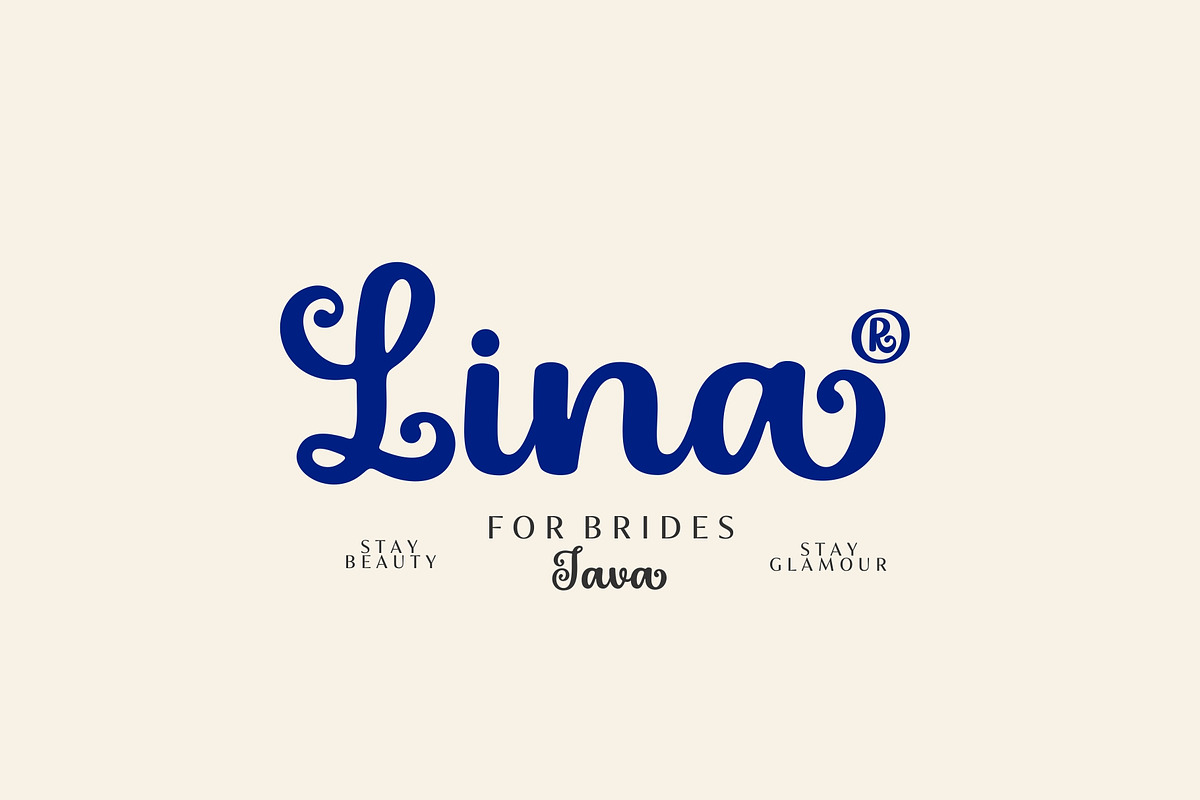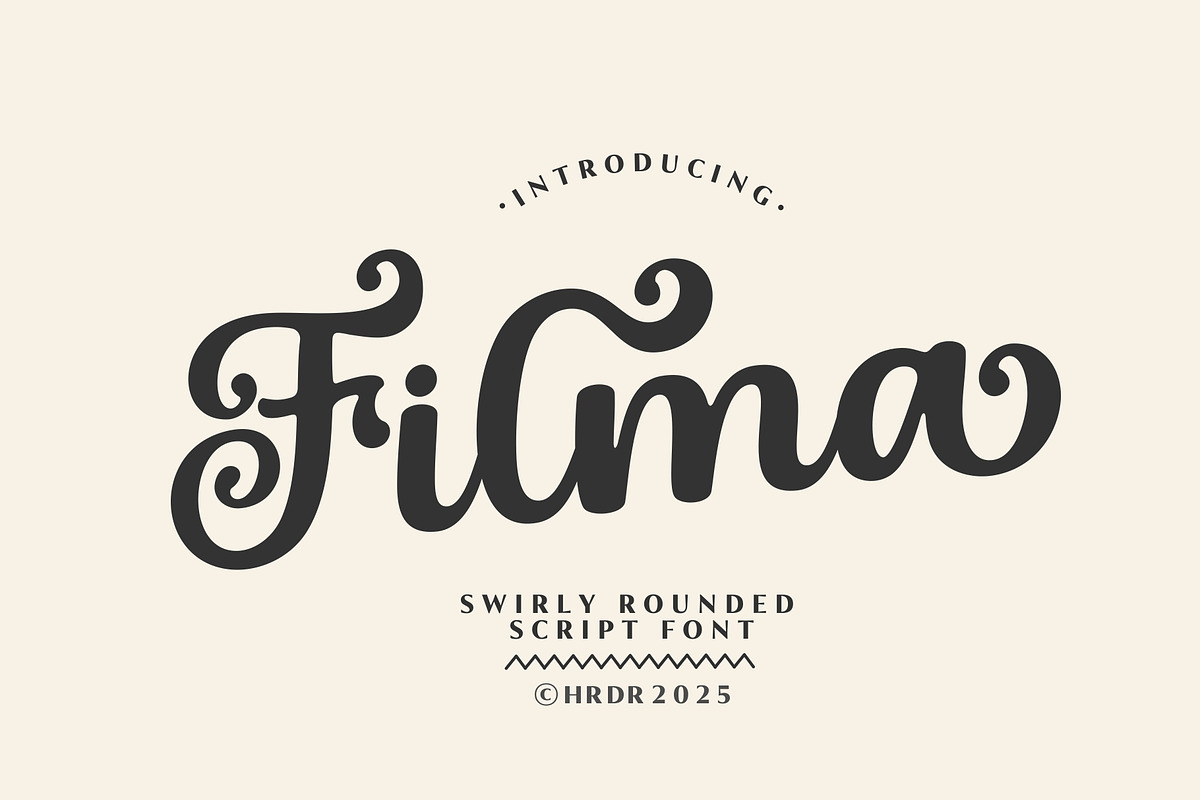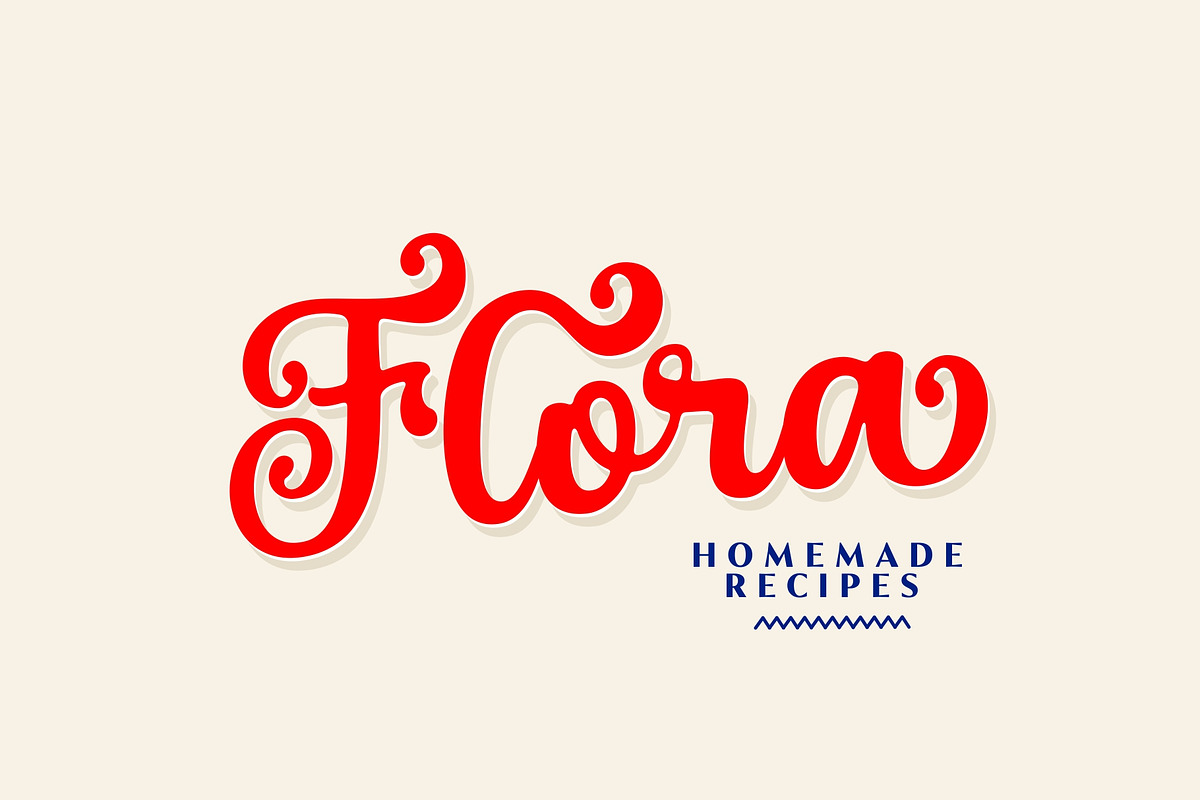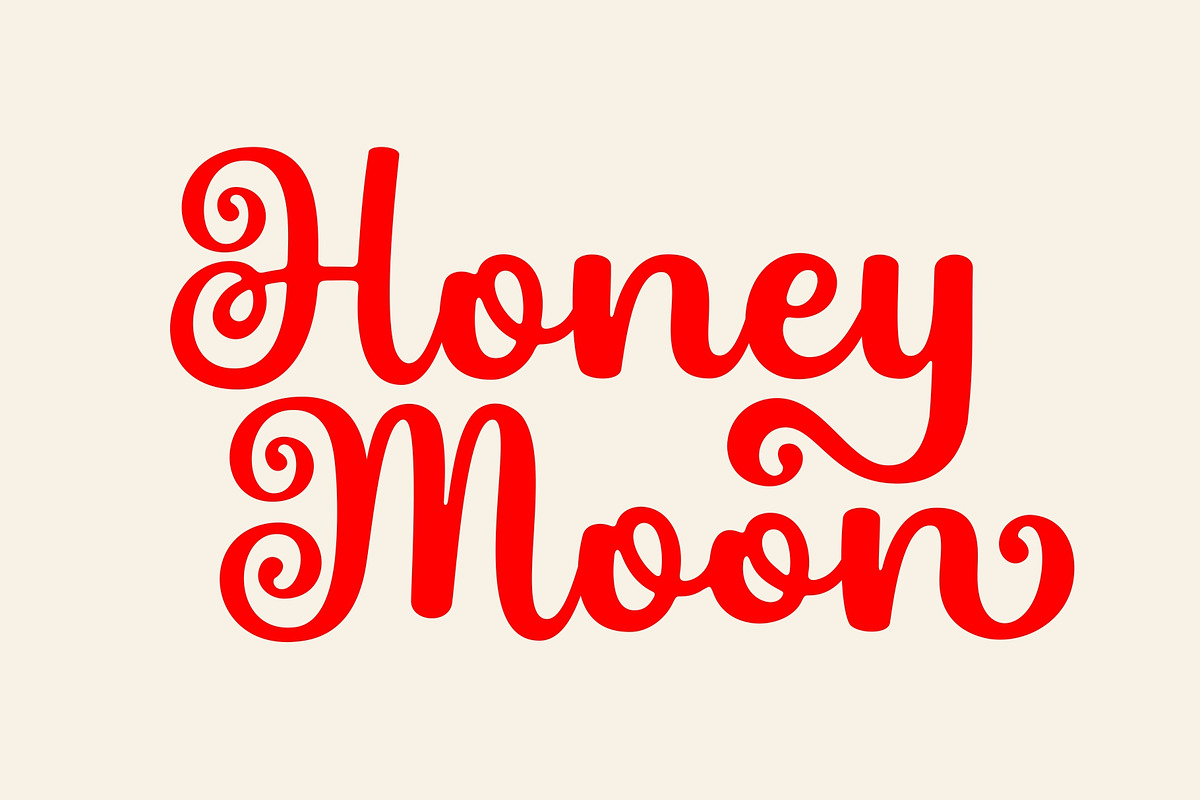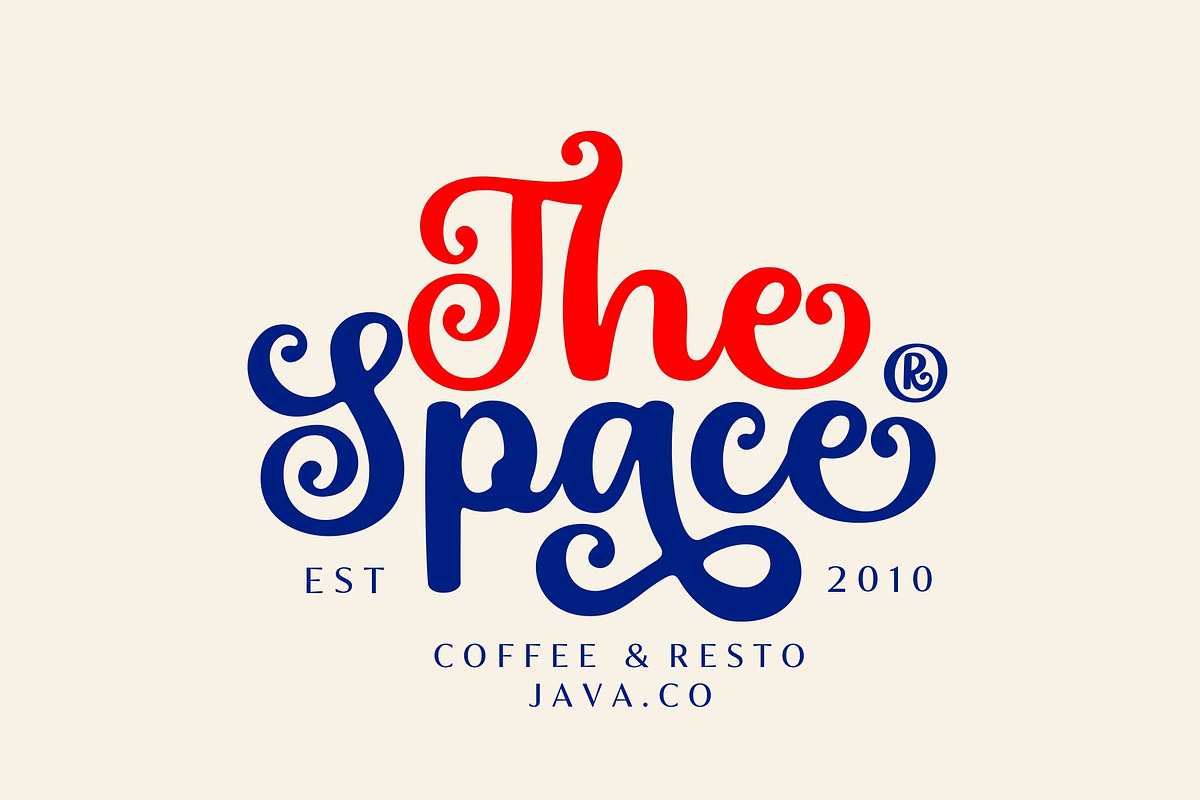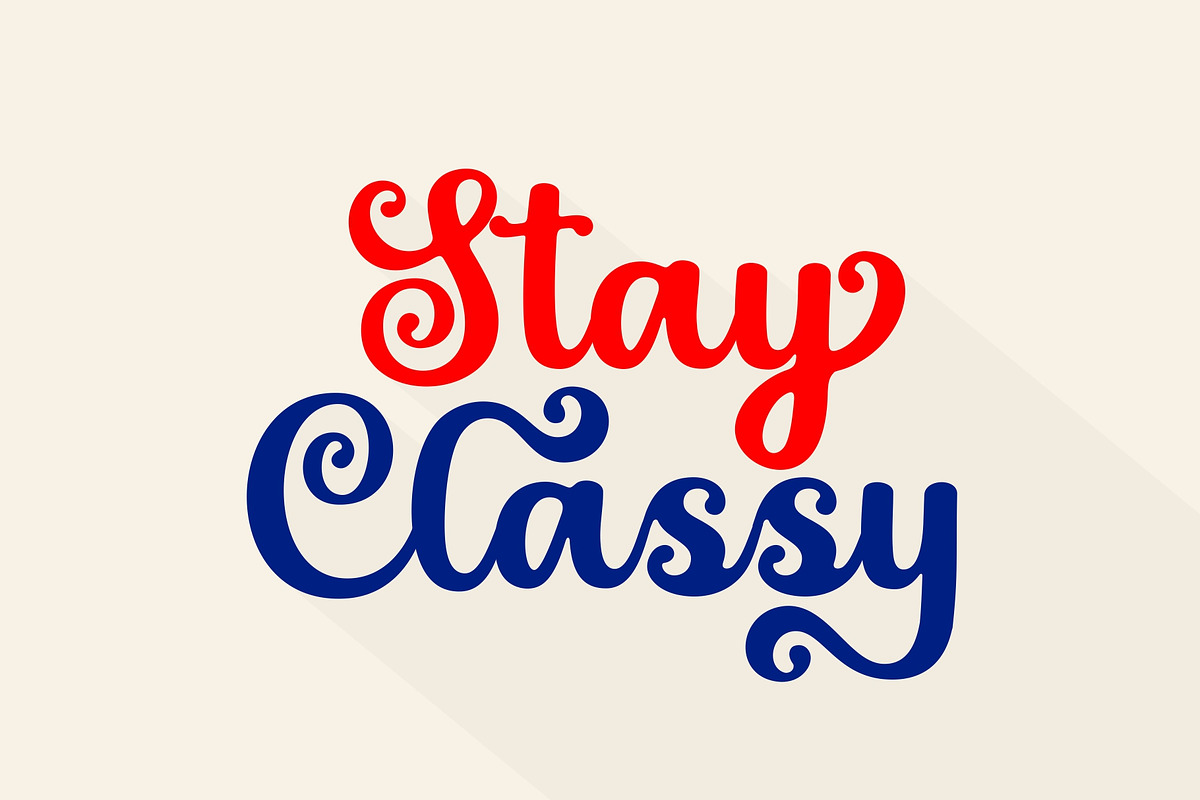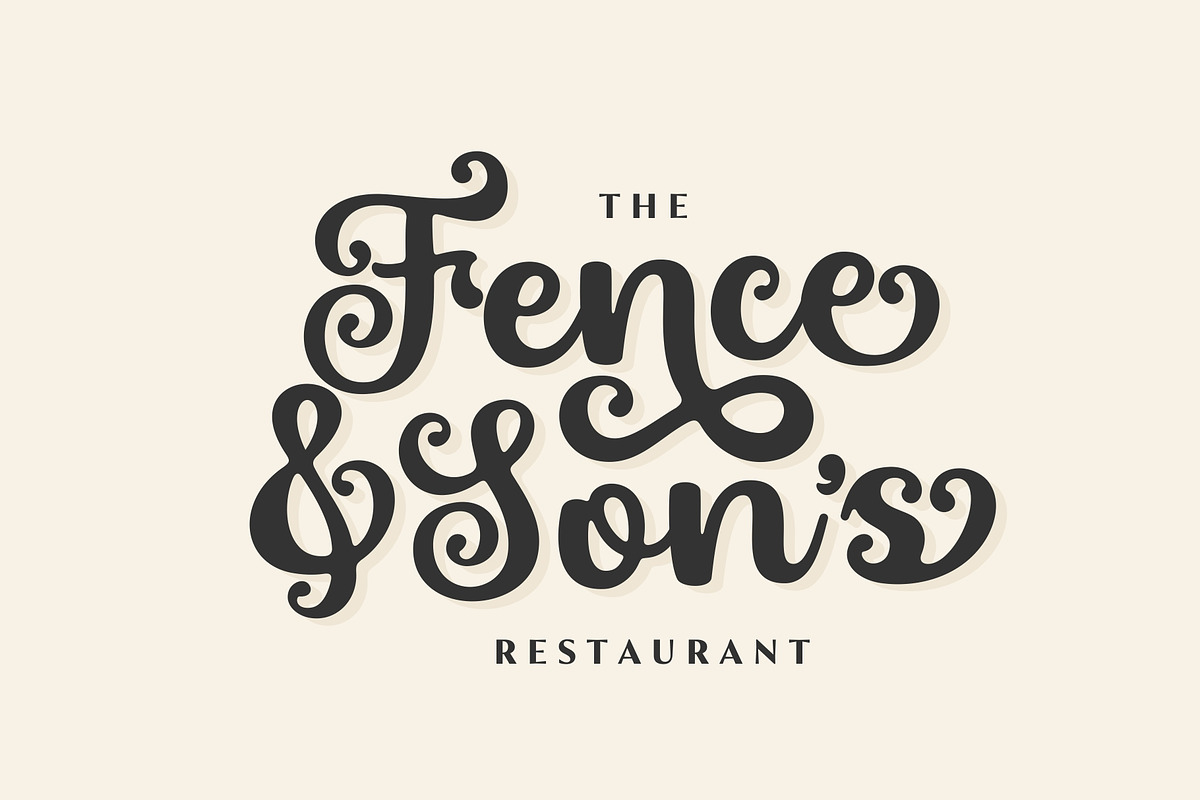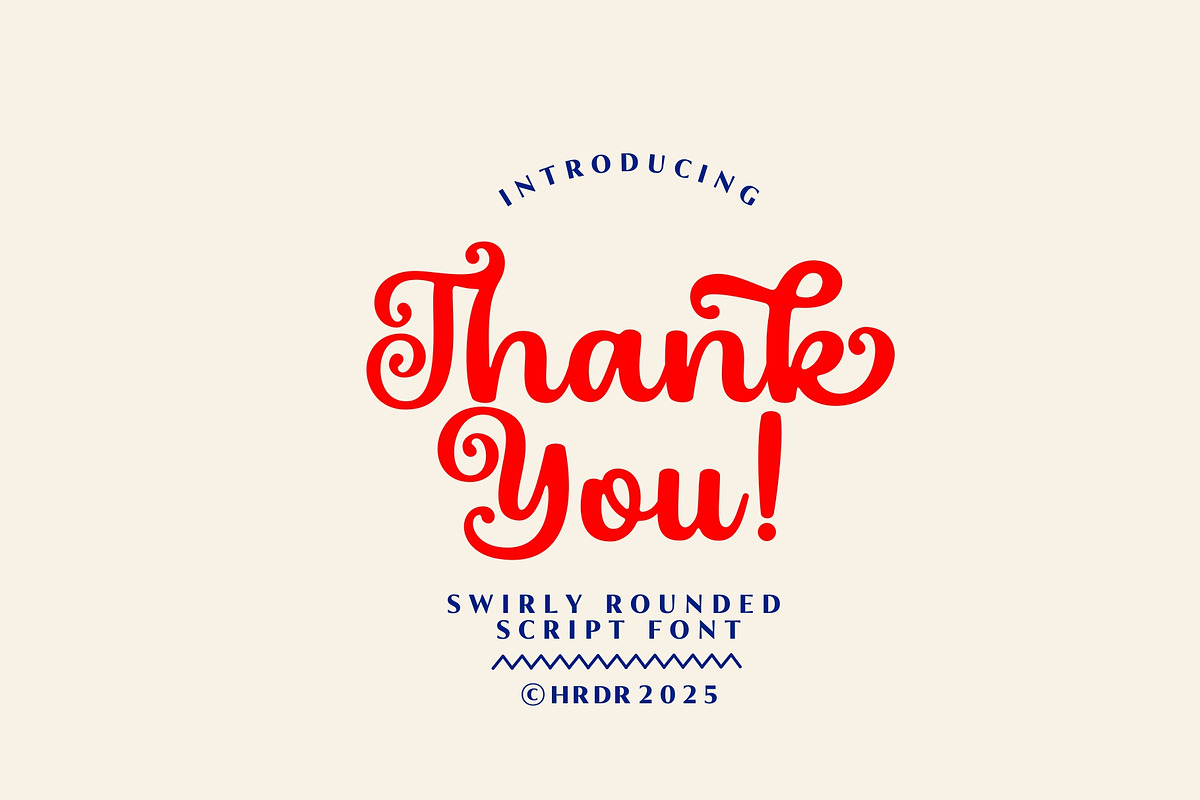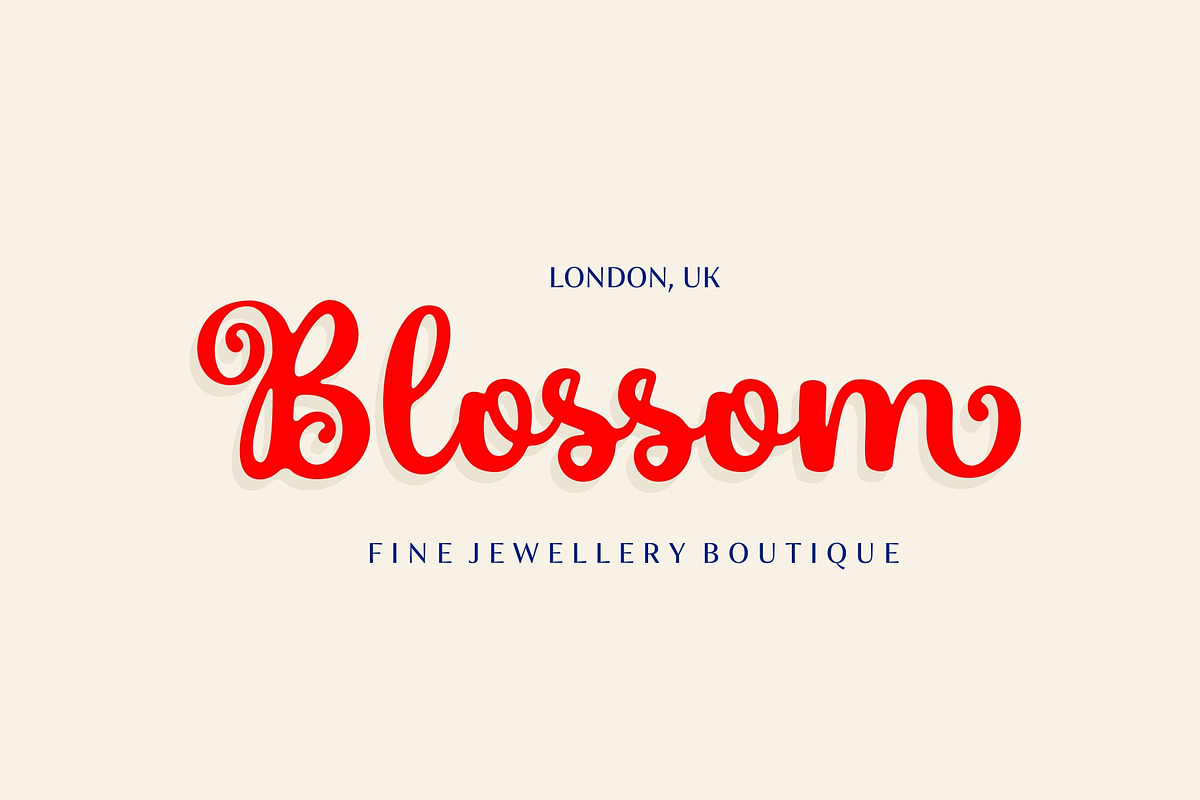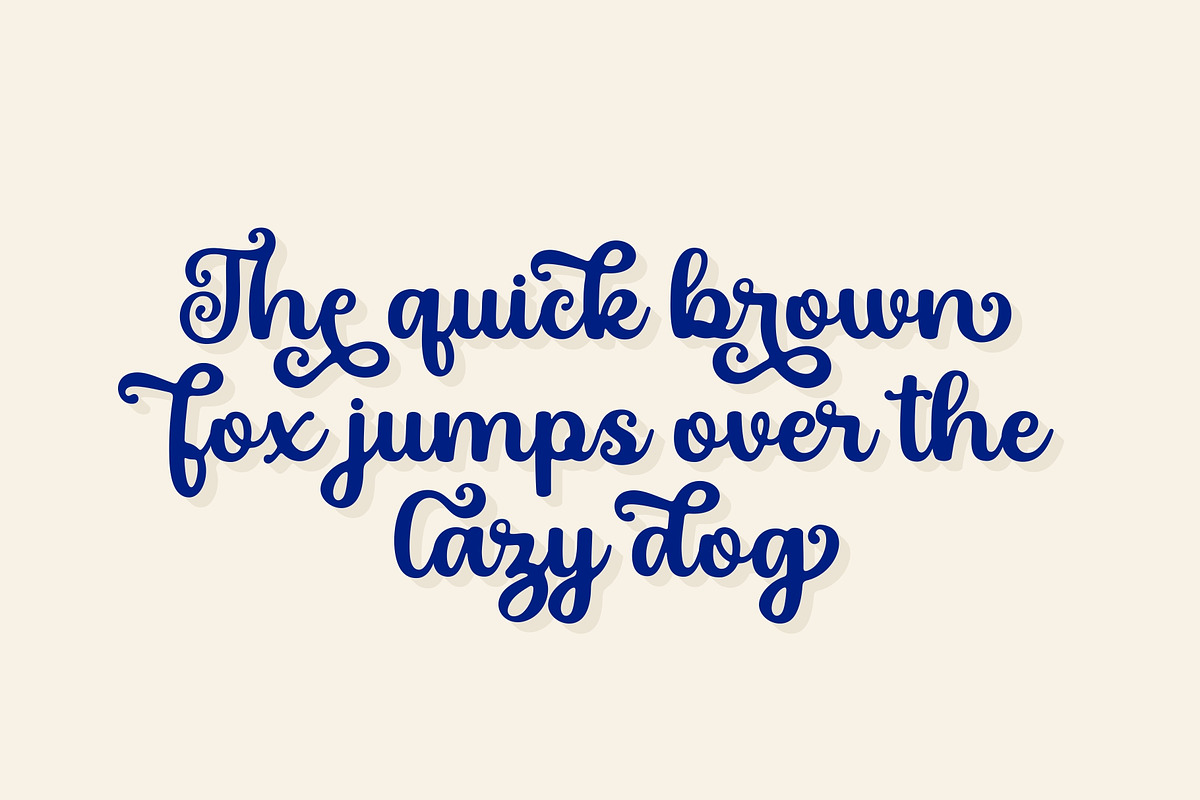
Filma
Filma is a Swirl rounded script font, ideal for adding a friendly and elegant touch to your designs. Perfect for projects like branding, wedding invitations, neon signs, logos, greeting cards, and quotes, Artisan Script brings a versatile charm to various design needs.
This font includes a comprehensive feature set with uppercase, lowercase, numeric and multilingual support. Enjoy stylistic alternates, swashes, and ligatures, which offer diverse creative options.